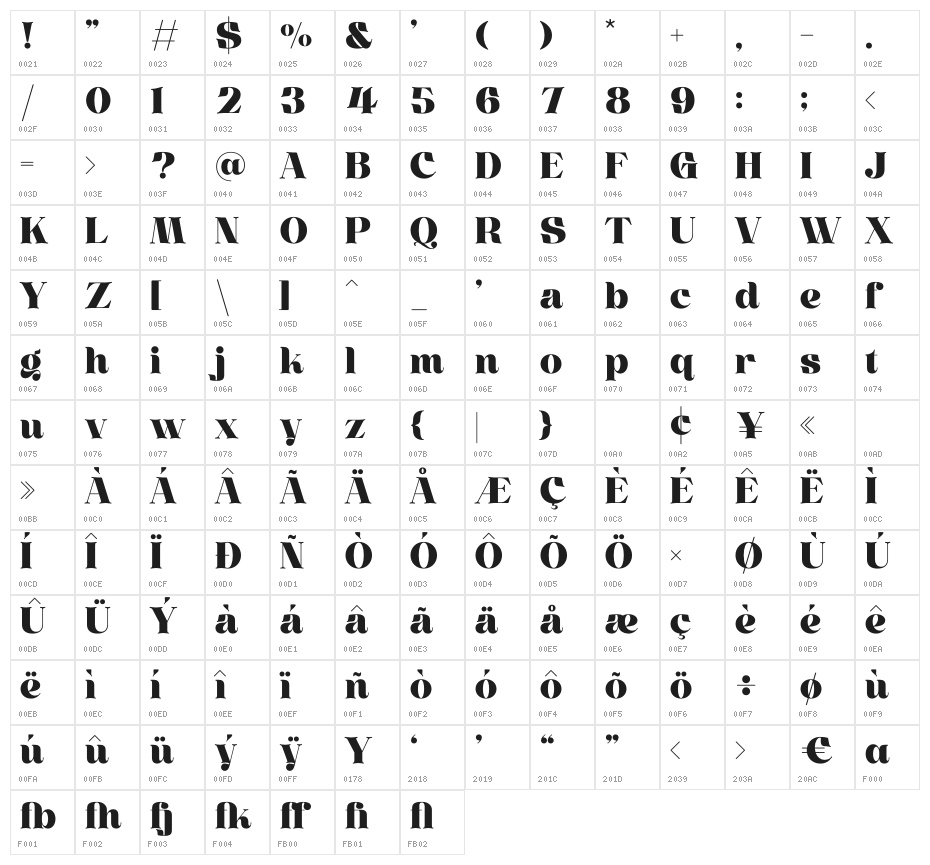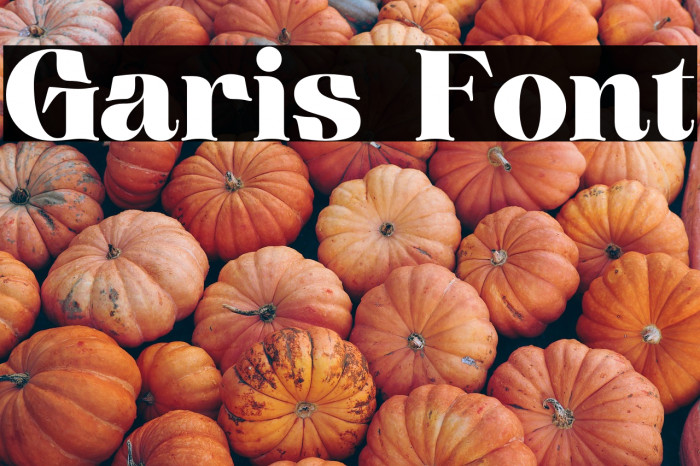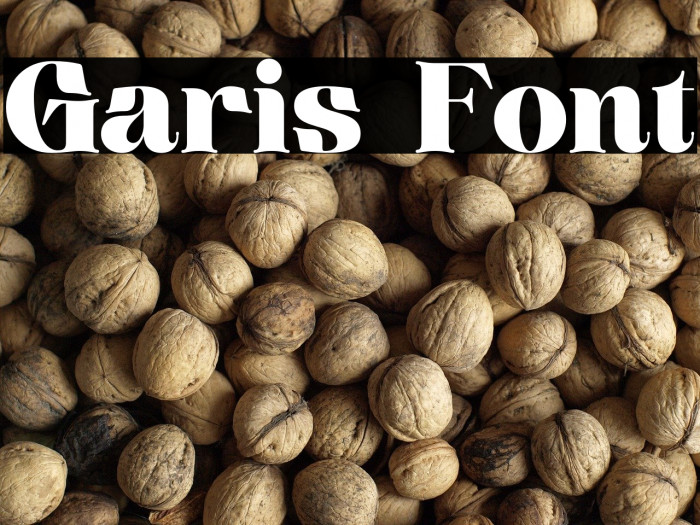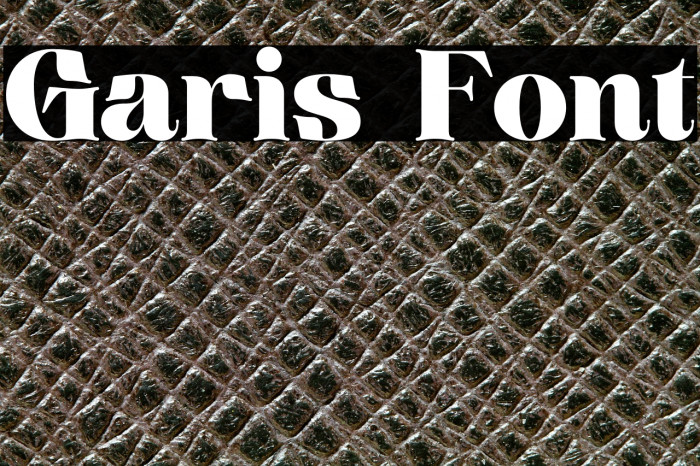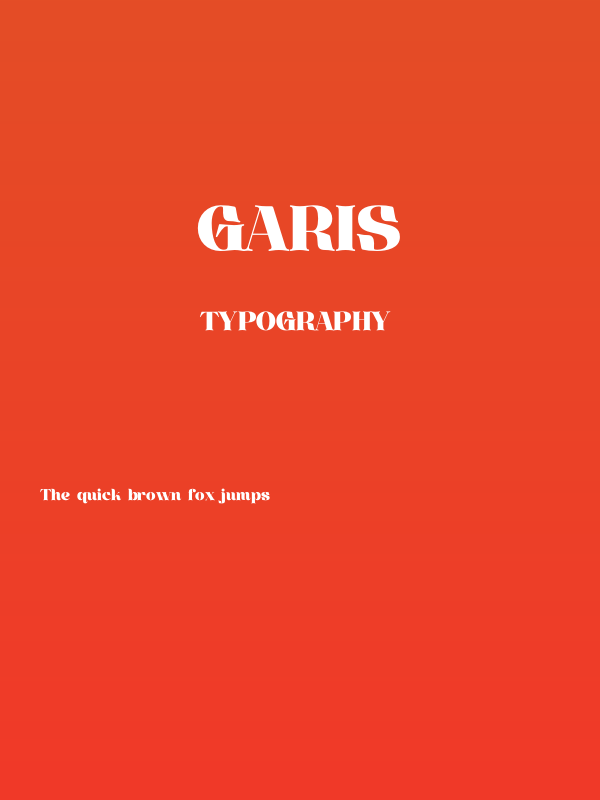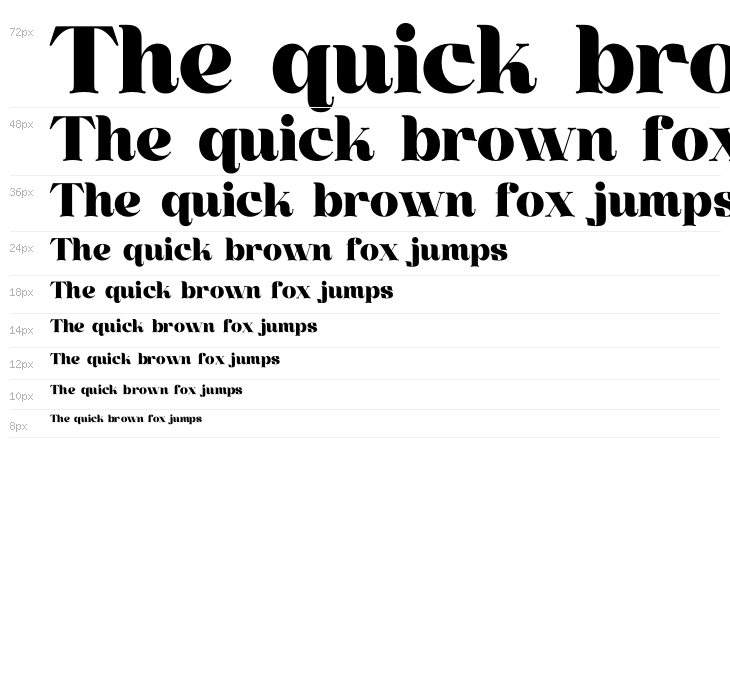
Garis Font
Garis Description
This font features a bold and dramatic style with high contrast between thick and thin strokes. The characters have a distinct, sharp appearance with elegant curves and pointed serifs, giving it a sophisticated yet assertive look. The uppercase letters are particularly striking, with unique flourishes that add a touch of flair. The lowercase letters maintain the boldness and are designed to complement the uppercase, creating a cohesive and visually appealing typeface. The numerals and special characters follow the same stylistic approach, ensuring consistency throughout.